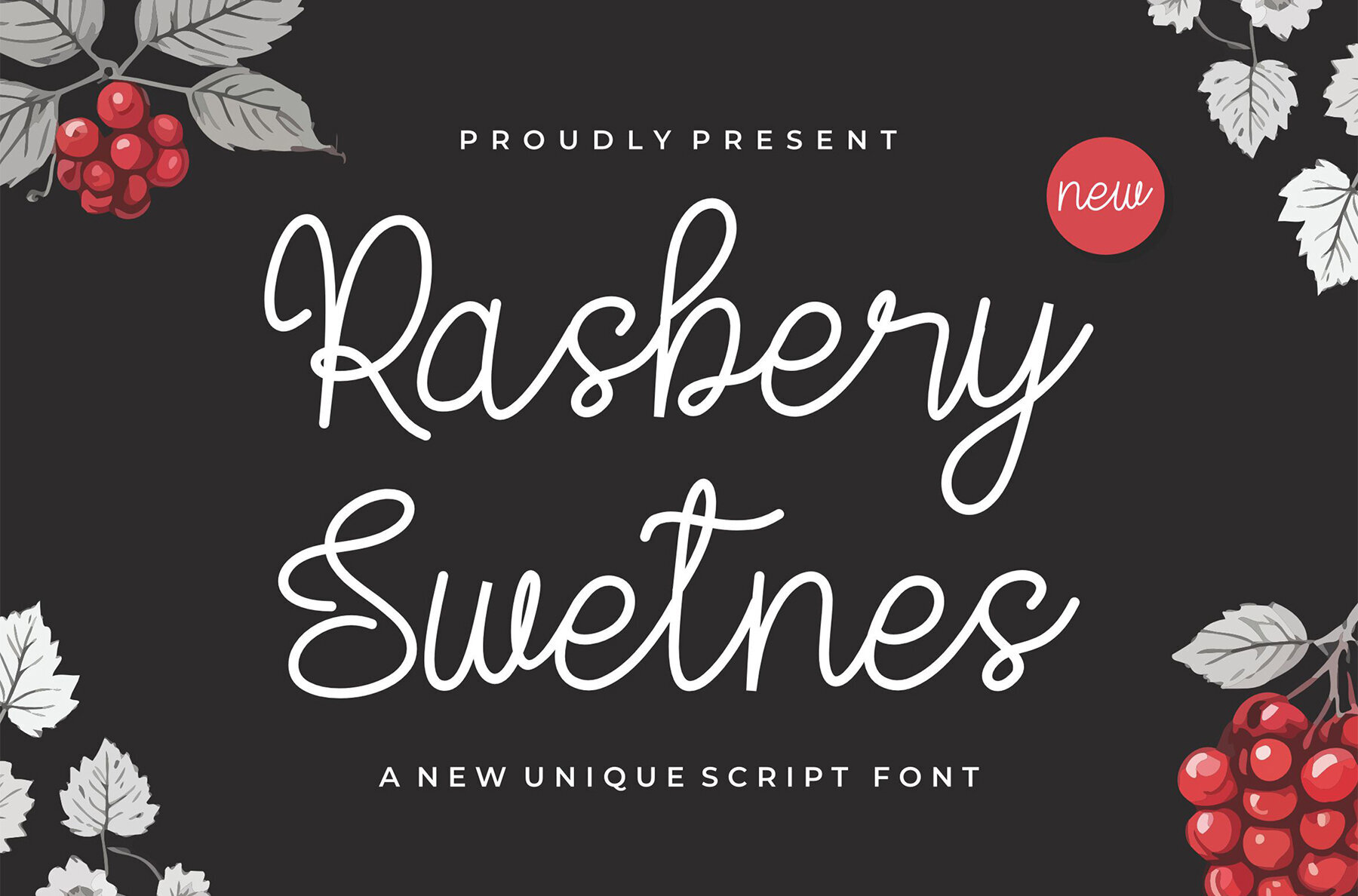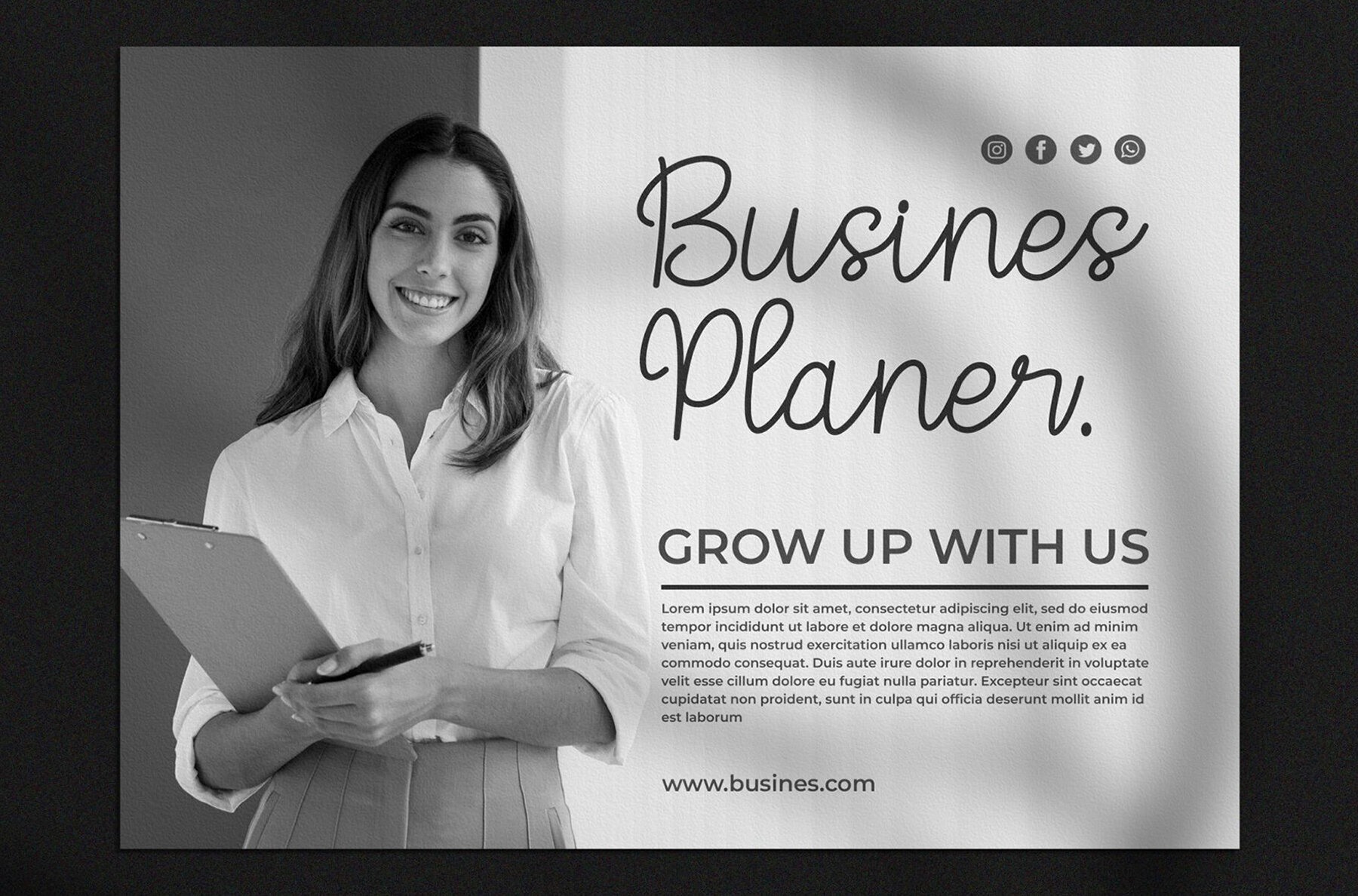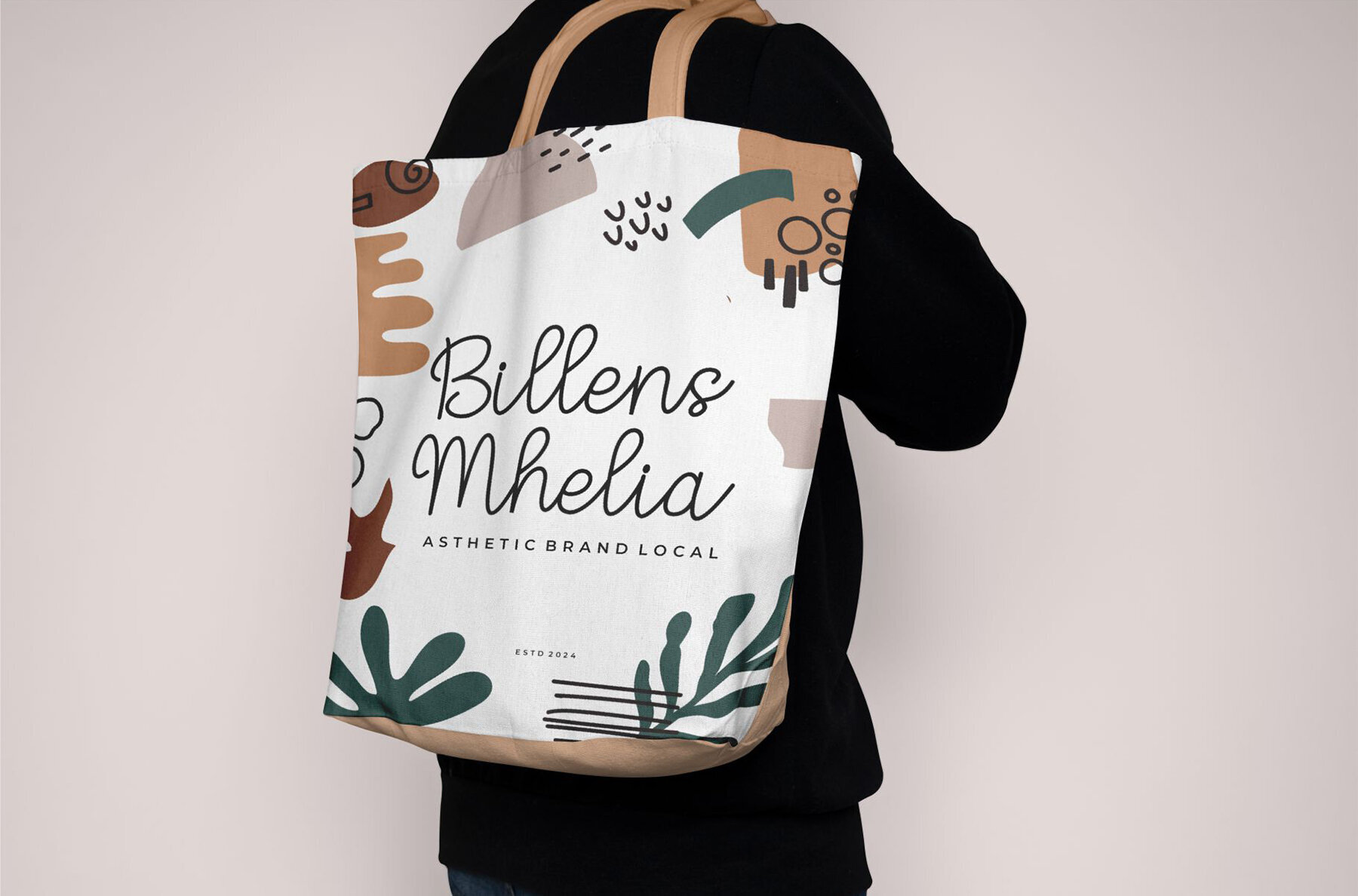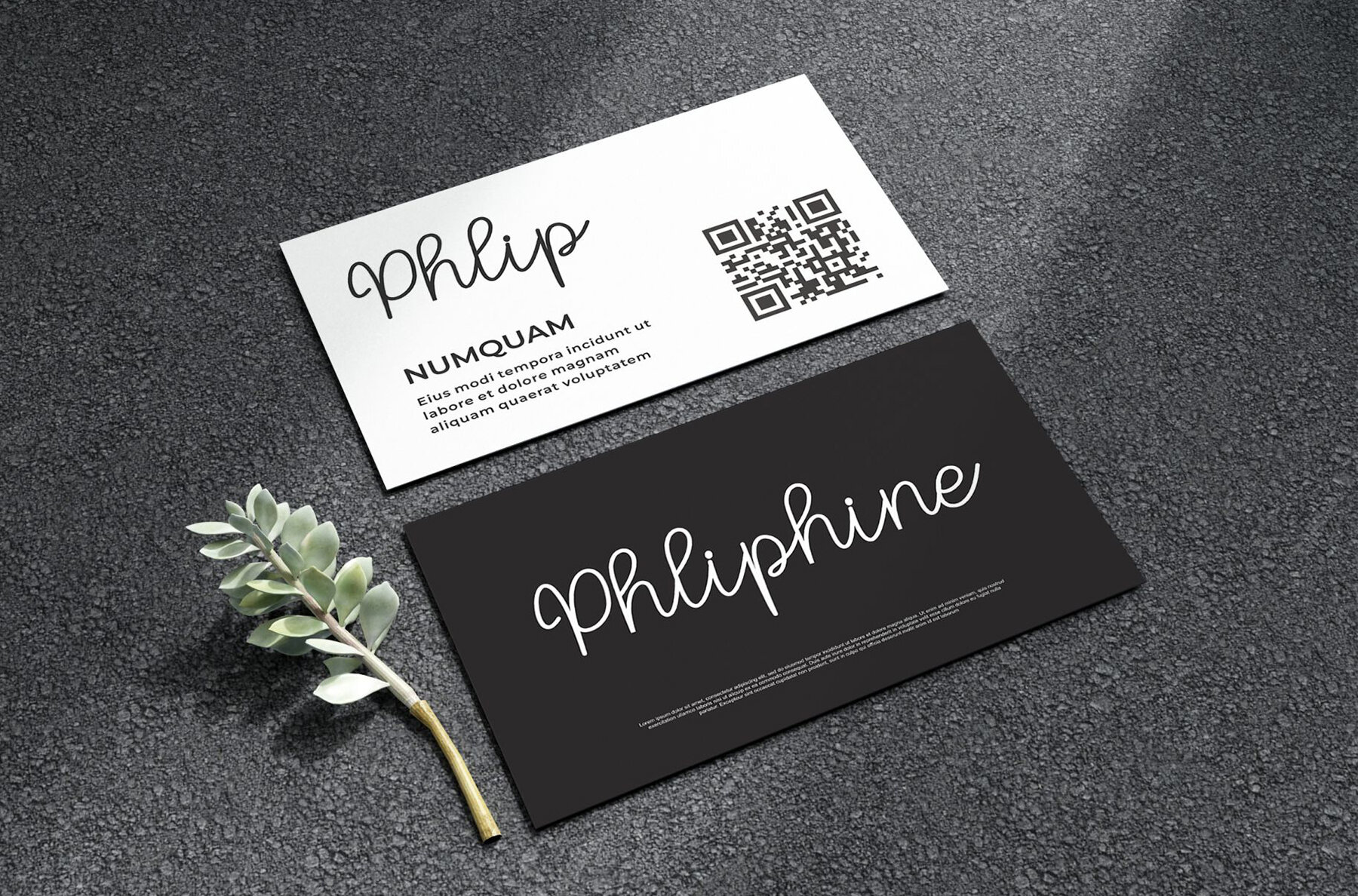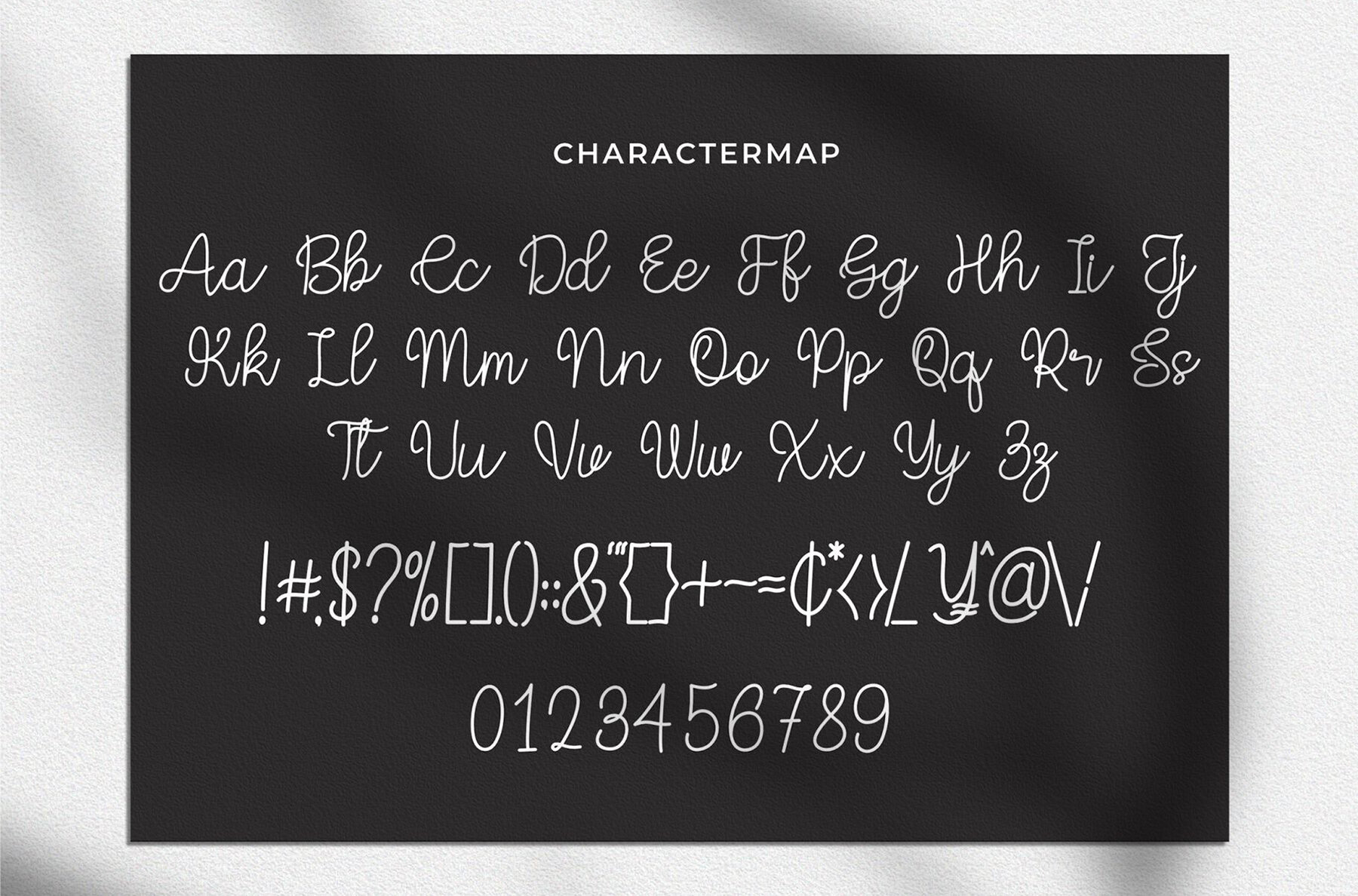
Rasbery Swetnes Font
Rasbery Swetnes
Rasbery Swetnes is a charming handwritten font that blends casual elegance with versatility. Its graceful strokes make it an ideal choice for a wide range of design projects, from branding and labels to photography and invitations. This font adds a personal touch to wedding designs, social media posts, and advertising materials, enhancing the overall visual appeal.
Whether you're working on stationery, product packaging, or unique product designs, Rasbery Swetnes offers a classic yet stylish aesthetic. Its adaptability ensures it complements various design elements, making it a must-have for any designer aiming for a refined and approachable look in their projects.